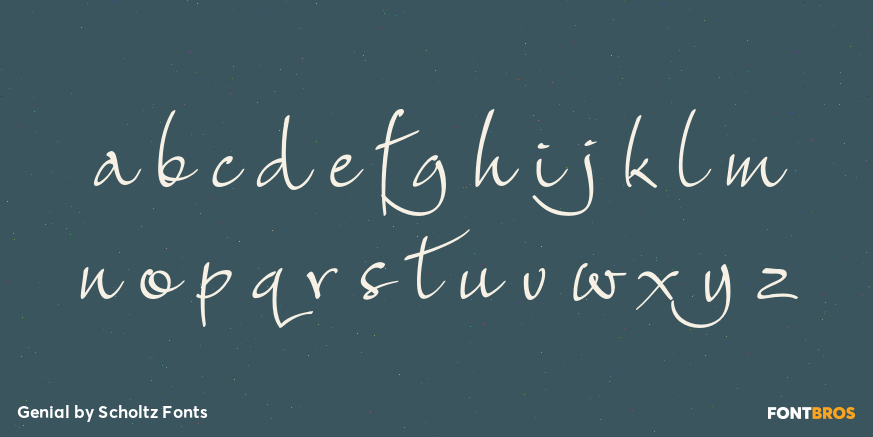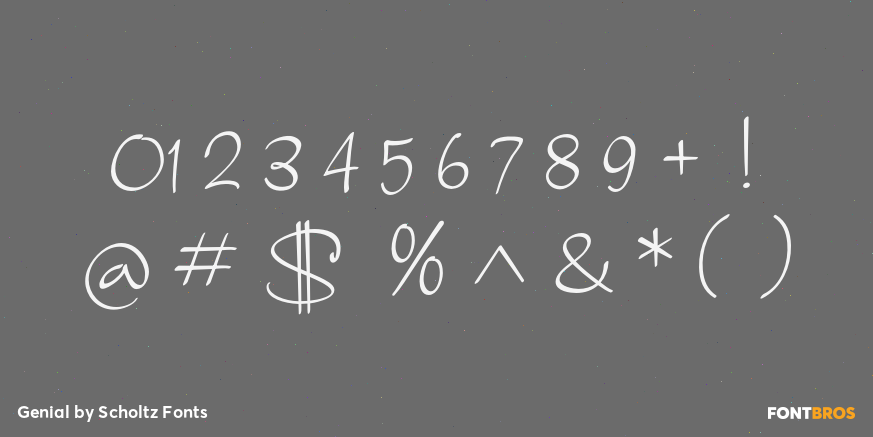
Genial
Font Family by Scholtz Fonts
Genial is an elegant, contemporary script font in nine styles, specifically designed for maximum versatility. All of the styles, ranging from condensed thin to expanded fat, are clear and legible. The font conveys a feeling of relaxed elegance.
Use a combination of styles for product branding, book covers, invitations, greeting cards. The Genial combination will enable you to use different styles of the same font for headings, sub-headings and body text.
Genial contains over 250 characters - (upper and lower case characters, punctuation, numerals, symbols and accented characters are present). It has all the accented characters used in the major European languages.